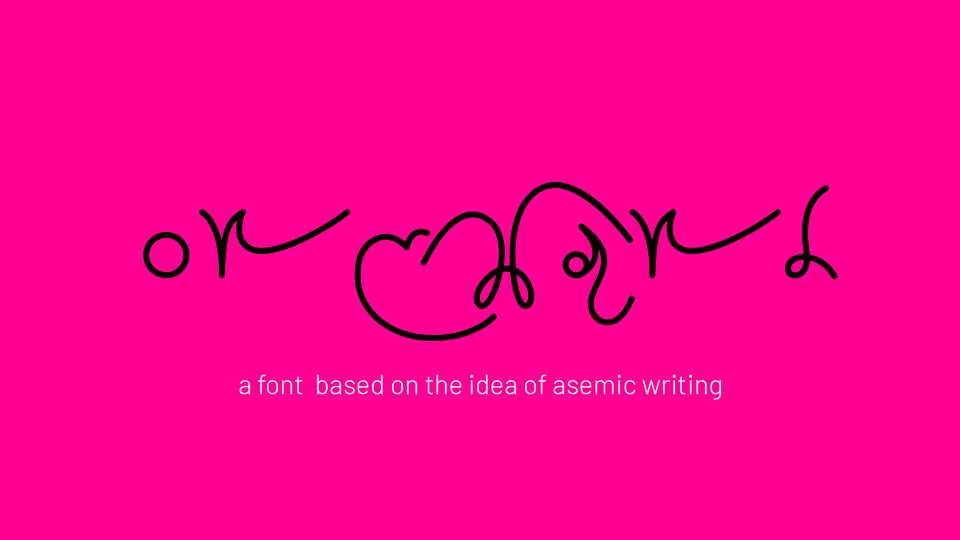
Download Orchard font, a handwritten typeface in one weight based on the idea of asemic writing as a digital font. Orchard font can be used for creating unique visual arts.
Designer: Rory King